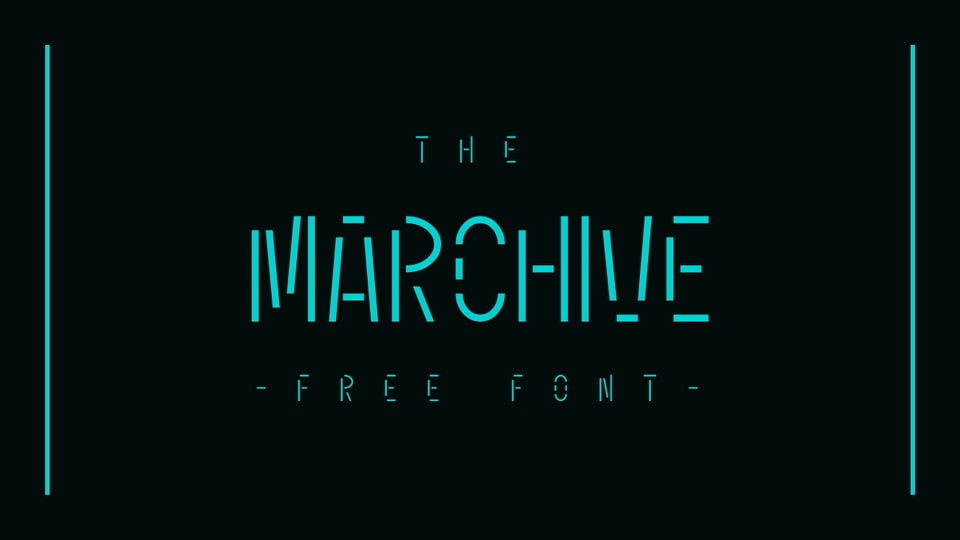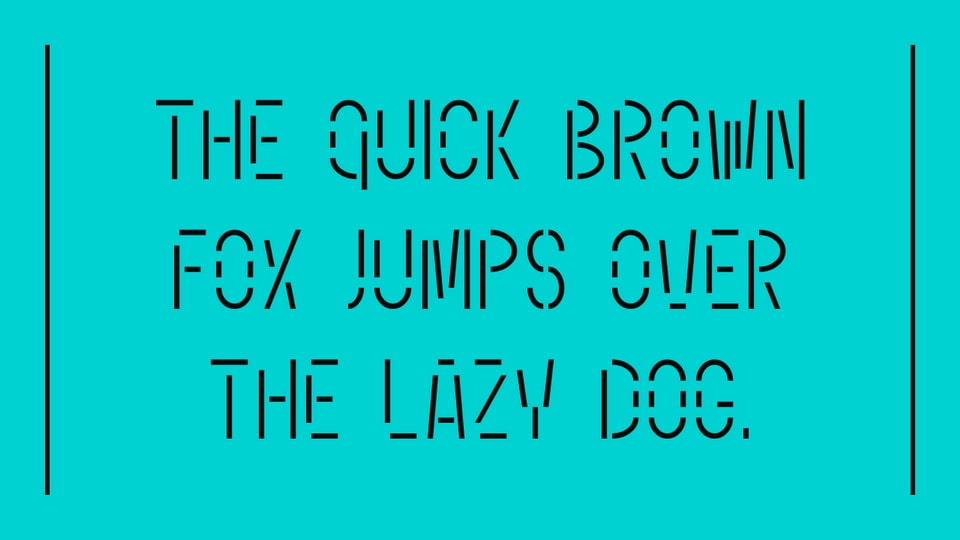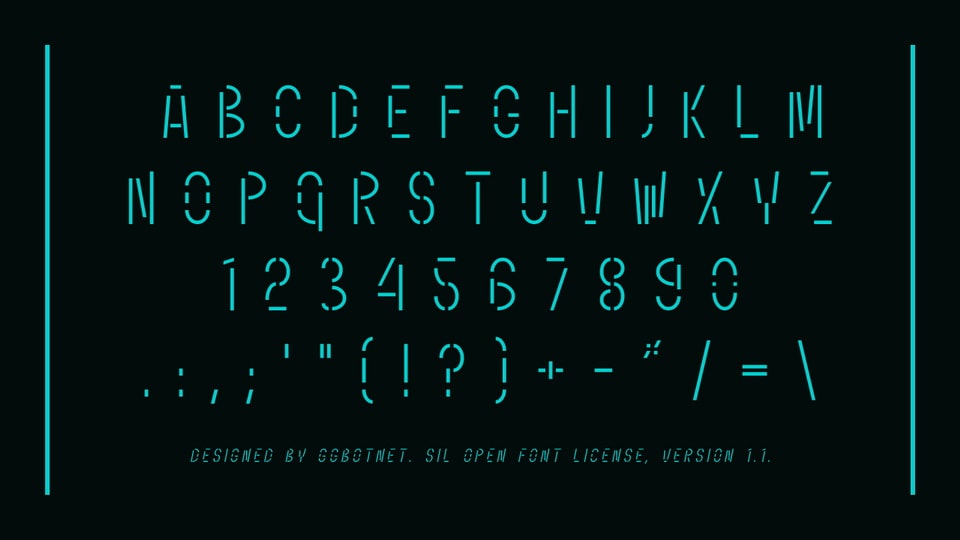
Designed by GGBotNet, Marchive is a decorative display font with a futuristic, segmented structure built from thin monoline strokes and deliberate breaks. Its letters have an upright geometric rhythm, narrow proportions, and rounded terminals that soften the technical look. The stencil-like gaps create a digital archive or sci-fi interface feeling, while the spacing keeps short words and uppercase settings readable at larger sizes. Small text readability is limited by the broken forms and fine stroke weight. The style fits titles, game graphics, tech posters, cyber-themed branding, interface mockups, album artwork, and other display-focused compositions.